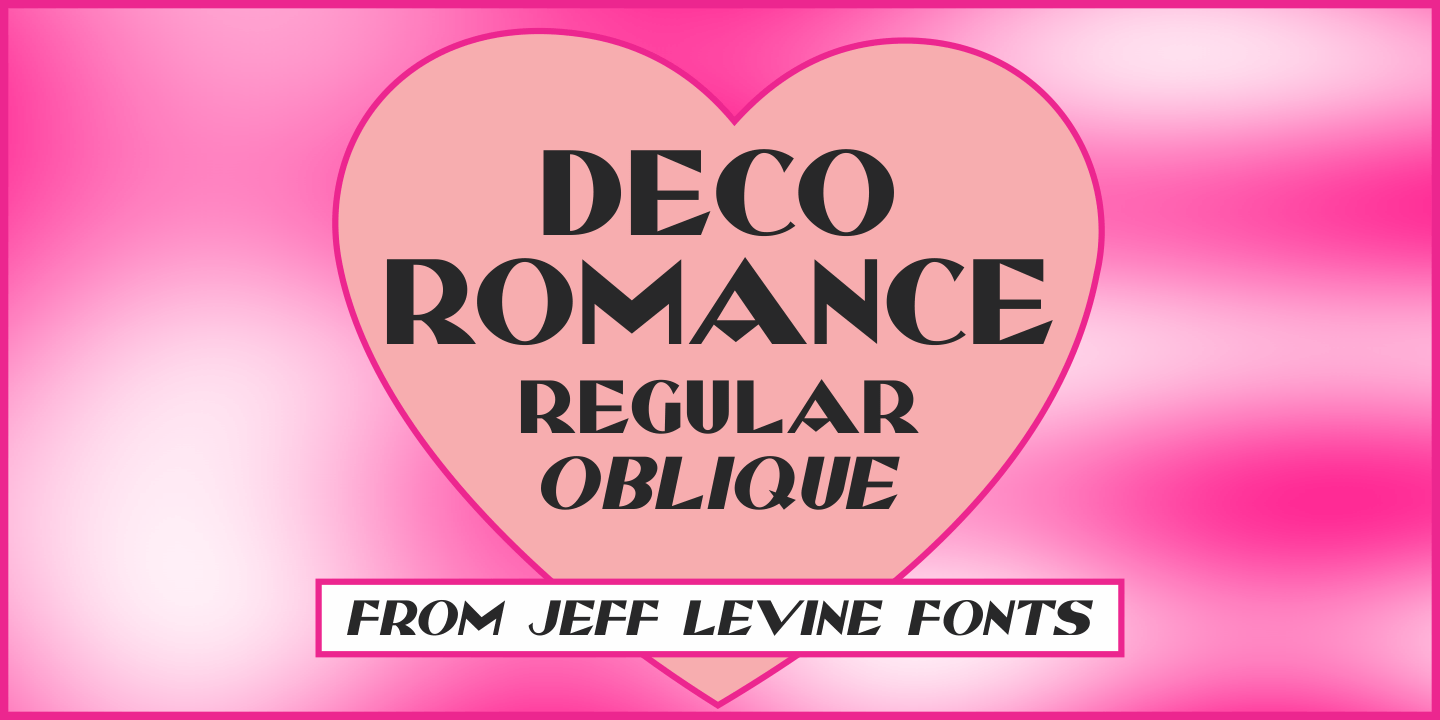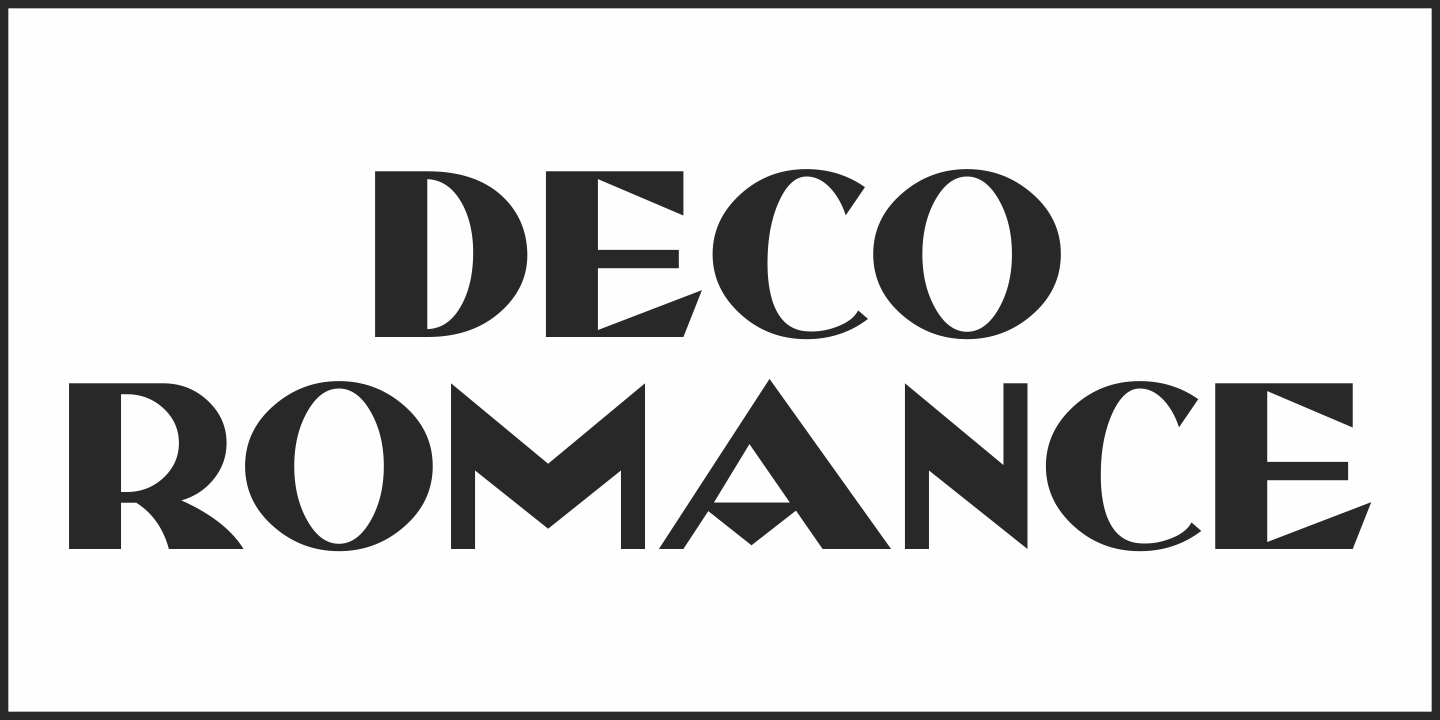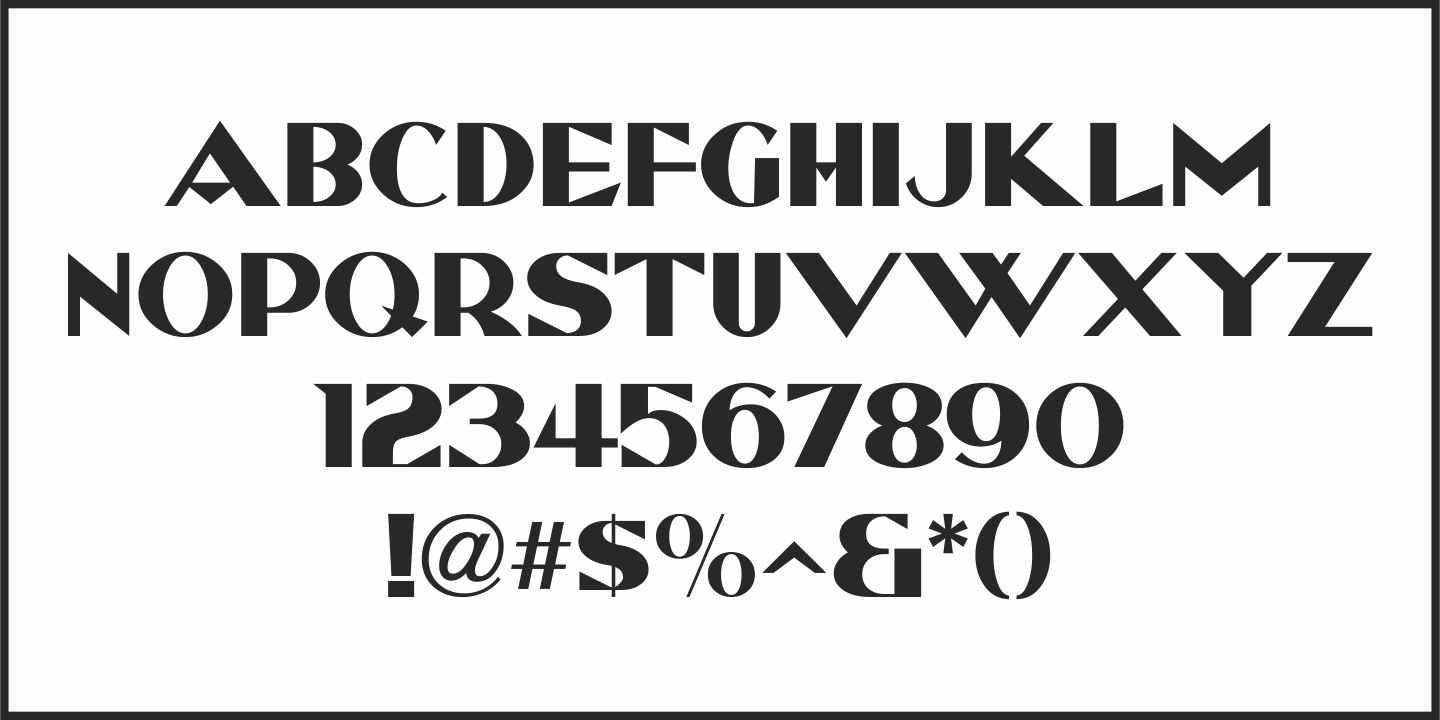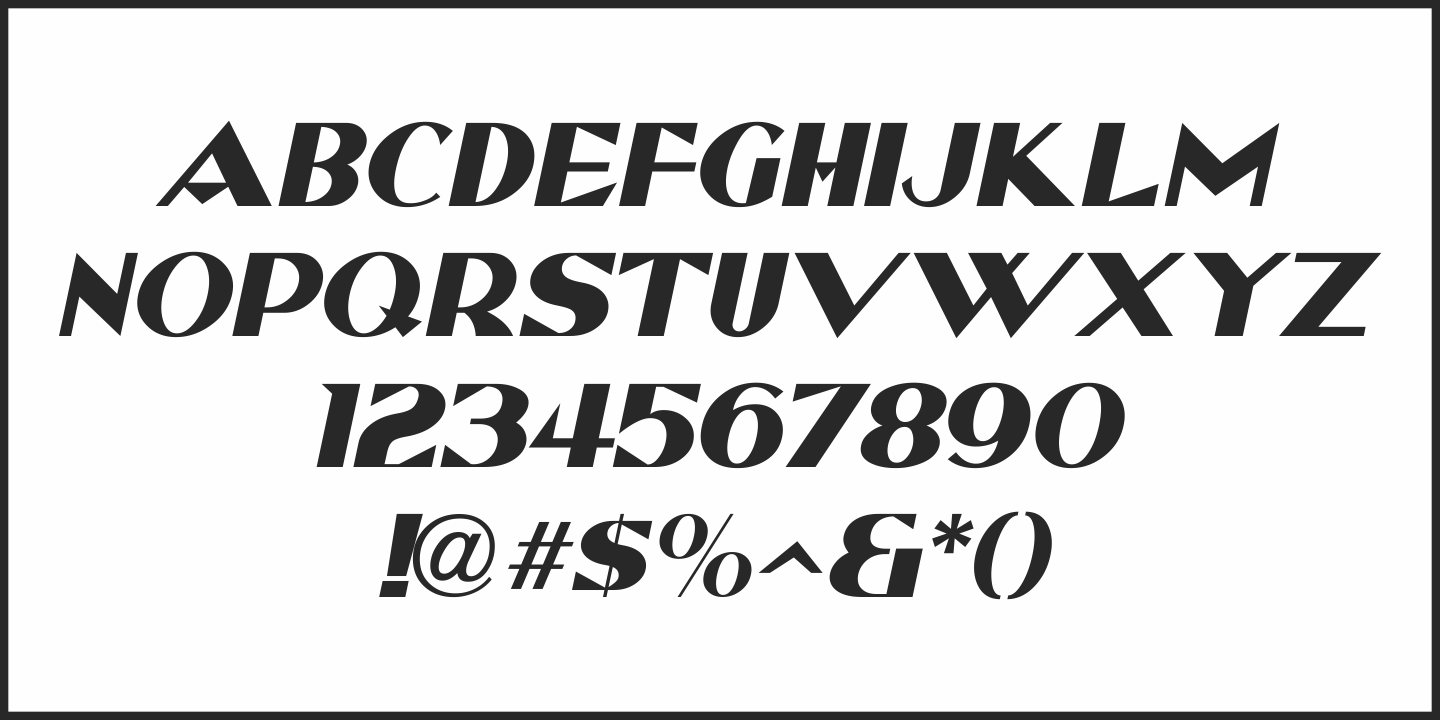
Deco Romance
From the cover of the 1932 sheet music for “A Great Big Bunch of You” comes a hand-lettered Art Deco type design; boldly hand lettered with contrasting angled lines and varying character widths.
Deco Romance JNL is available in both regular and oblique versions.
Deco Romance by Jeff Levine Fonts